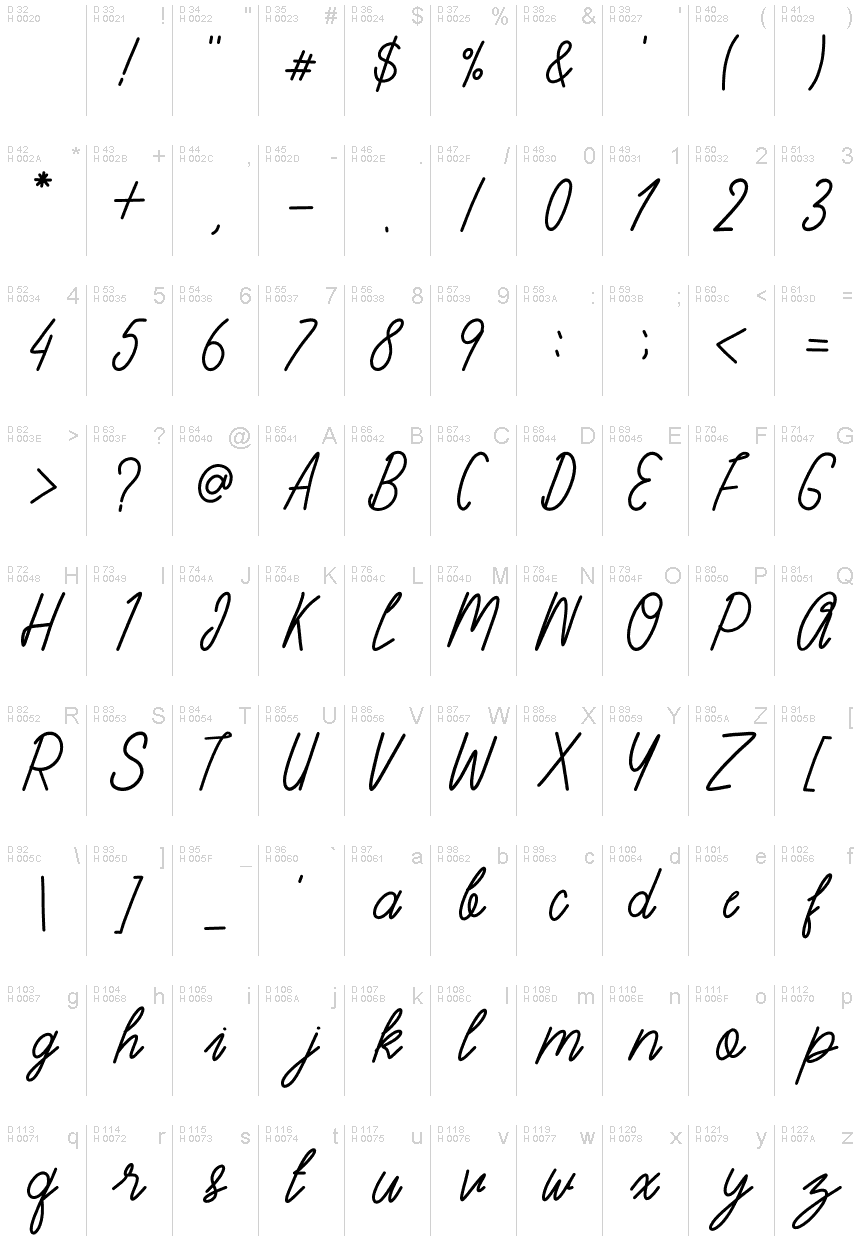
Melamun
Melamun is a whimsical and charming handwritten font designed by i wayan wisna wijaya. With its light weight, it exudes a delicate and dreamy quality that is perfect for projects that require a personal touch. Whether you're designing wedding invitations, greeting cards, or social media graphics, Melamun lends itself to creating an intimate and heartfelt atmosphere. Its playful curves and loops add a touch of elegance to any design while maintaining its organic feel. Let Melamun take your creative projects to the next level with its unique character and style.
Introducing the Melamun regular font, which we created especially for branding,invitation cards, business, quotes and other needs. It's perfect for designers looking for a font that's naturally shaped like handwriting.